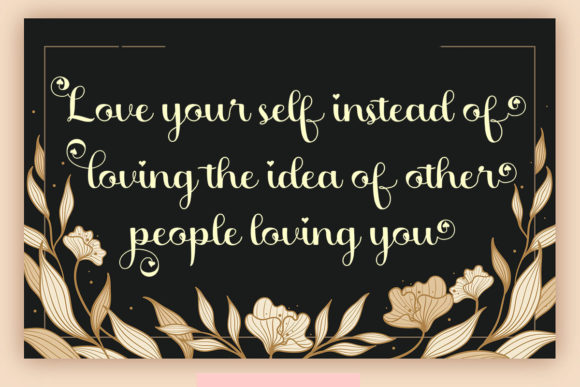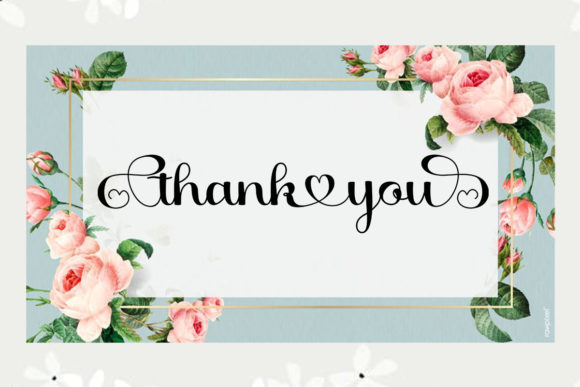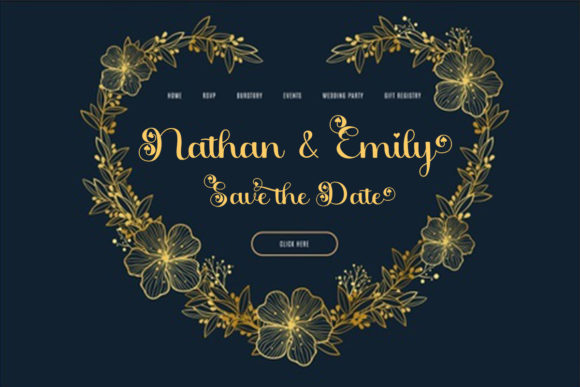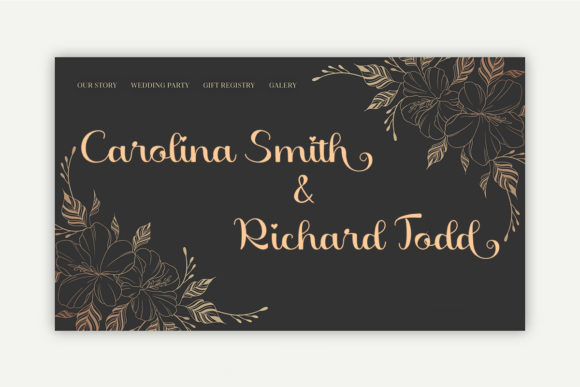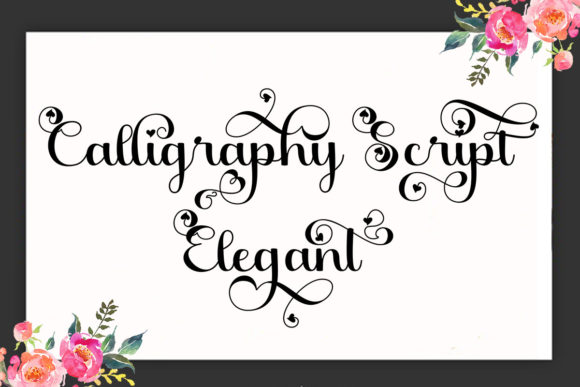
About Beauty Gracetiyan Font
Beauty Gracetiyan is a modern handwritten font with characters dancing up and down the baseline. Works perfectly for logos, fashion, stationery, letterpress, magazines, menus, books, invitations, wedding/greeting cards, packaging, labels, apparel, marketing, etc.